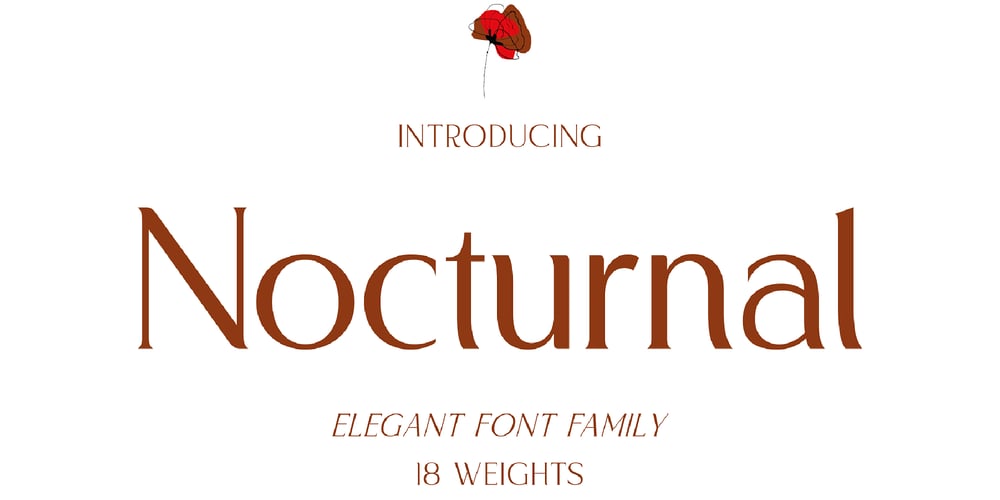
Nocturnal Font Family was designed by Igor Ovsyannykov and published by Hipfonts. Nocturnal contains 18 styles and family package options. Step into the enchanting world of Nocturnal, an exquisite sans-serif typeface that embodies the allure of the night. With its elegant design and versatile functionality, Nocturnal is more than just a typeface—it’s an experience, a feeling, a journey into sophistication and style.Nocturnal is not just a typeface; it’s a gateway to a world of elegance and sophistication. Its blend of beauty, versatility, and multilingual support makes it an invaluable tool for designers seeking to create impactful and enduring work. Whether you’re crafting a brand identity, designing editorial content, or developing digital interfaces, Nocturnal delivers the perfect balance of aesthetic allure and functional versatility.Indulge in the enchanting beauty of Nocturnal—the elegant sans typeface that will become an indispensable part of your design journey. Embrace the night, feel the sophistication, and let your creativity flourish with Nocturnal.